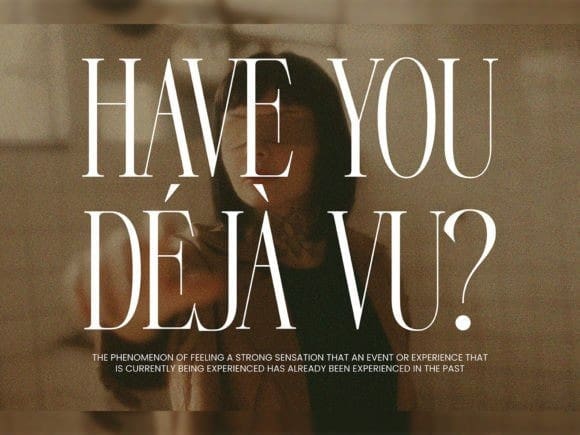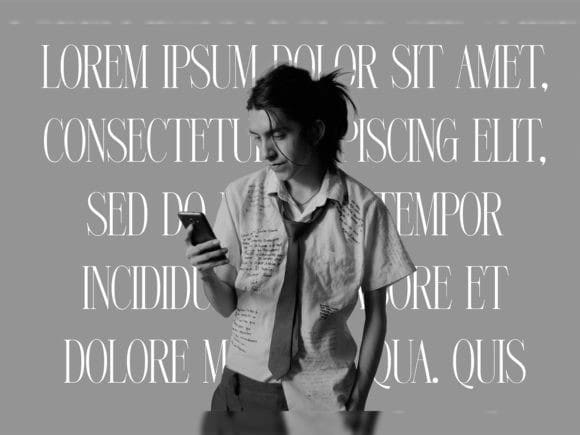
Nimbus Font
Nimbus Font, a simple and serif display font. So perfect for you who need a typeface for logo designs, magazines, social media, brochures, and many more.